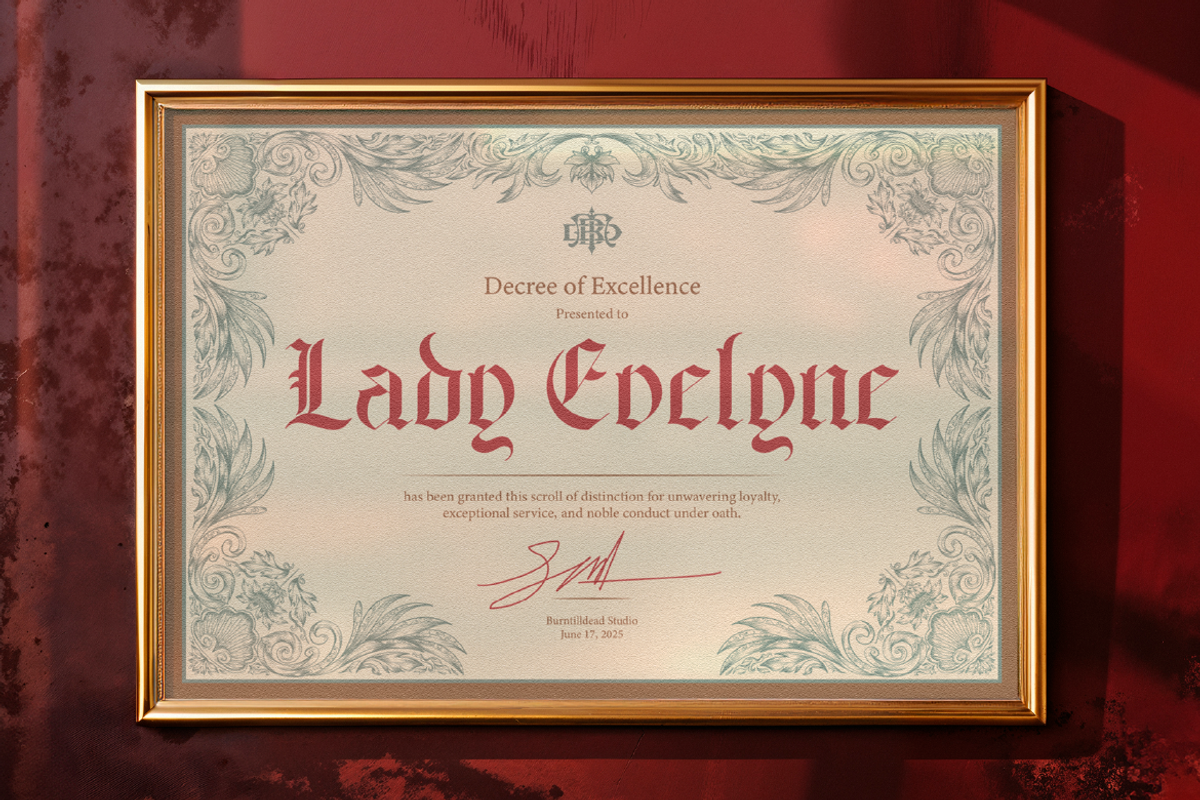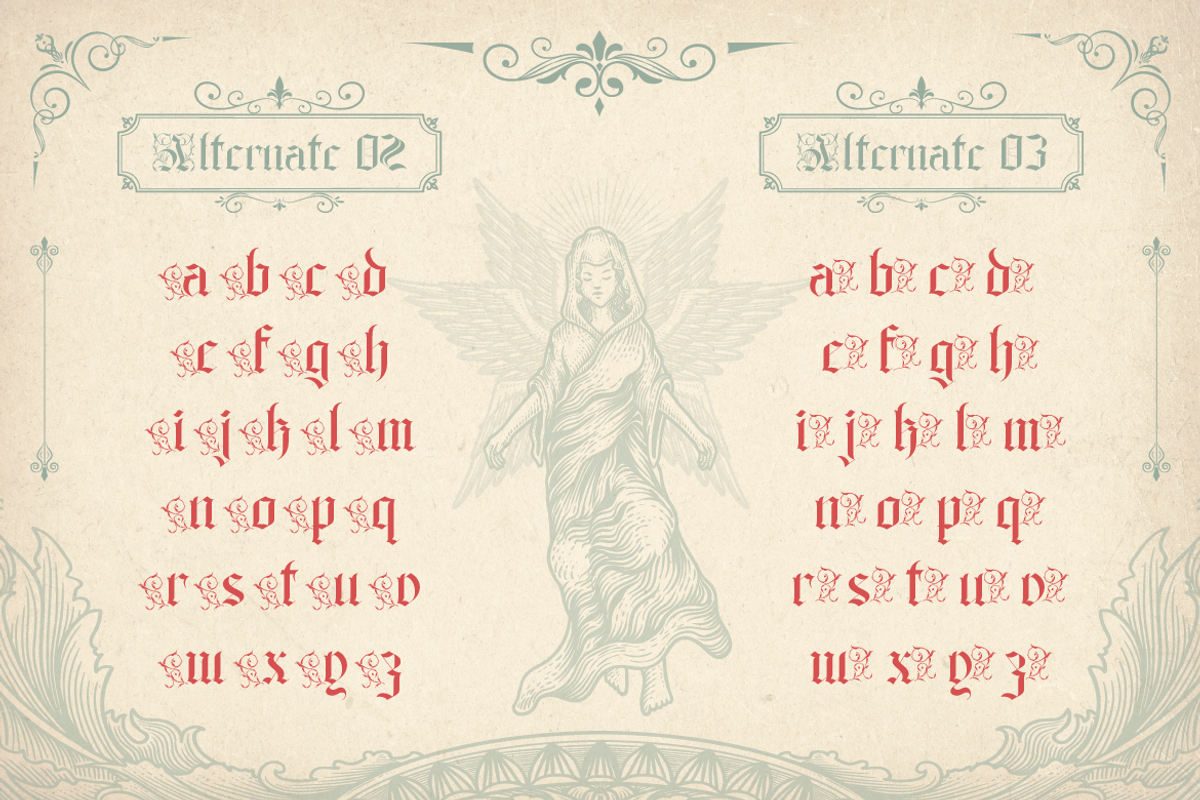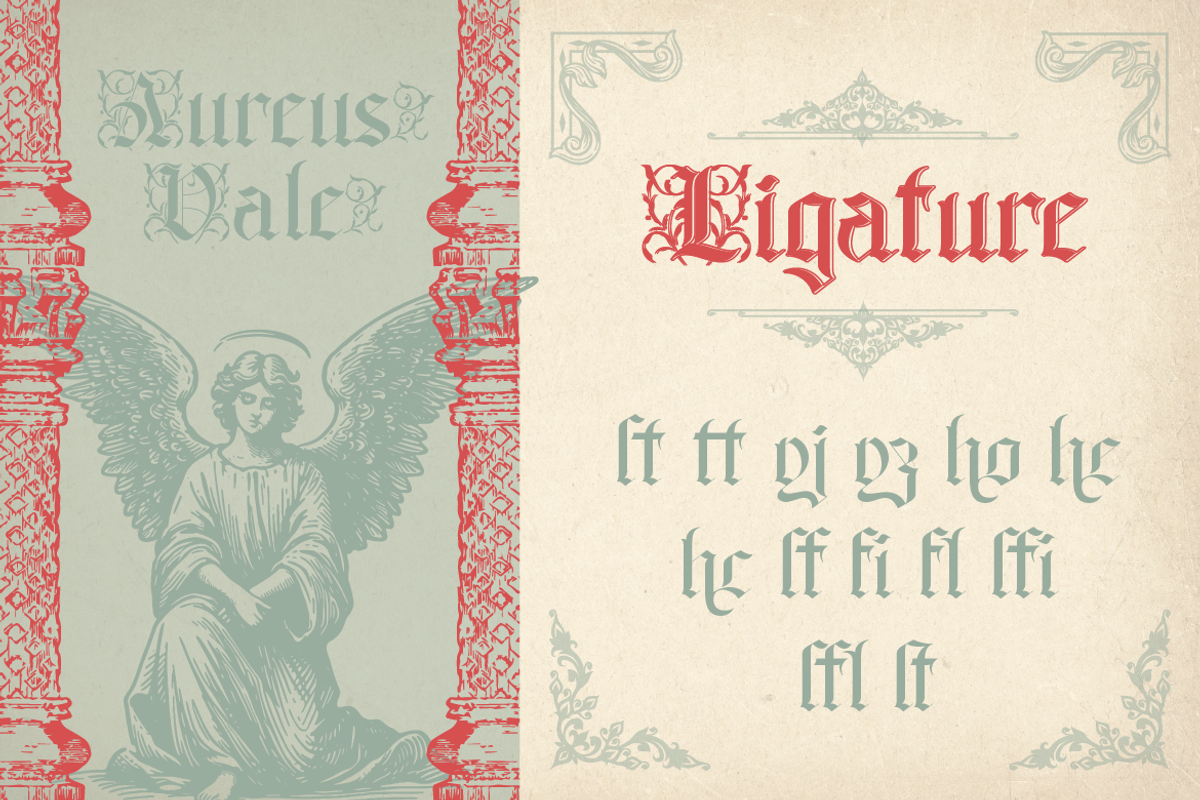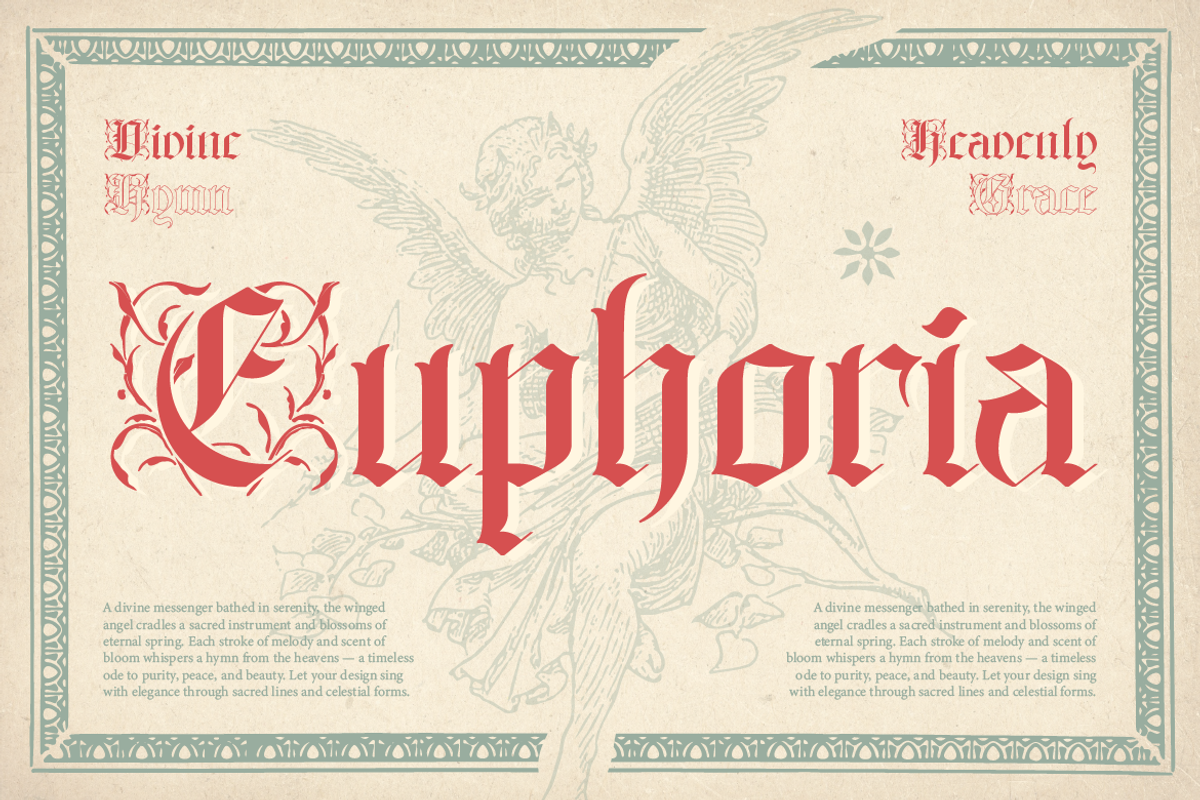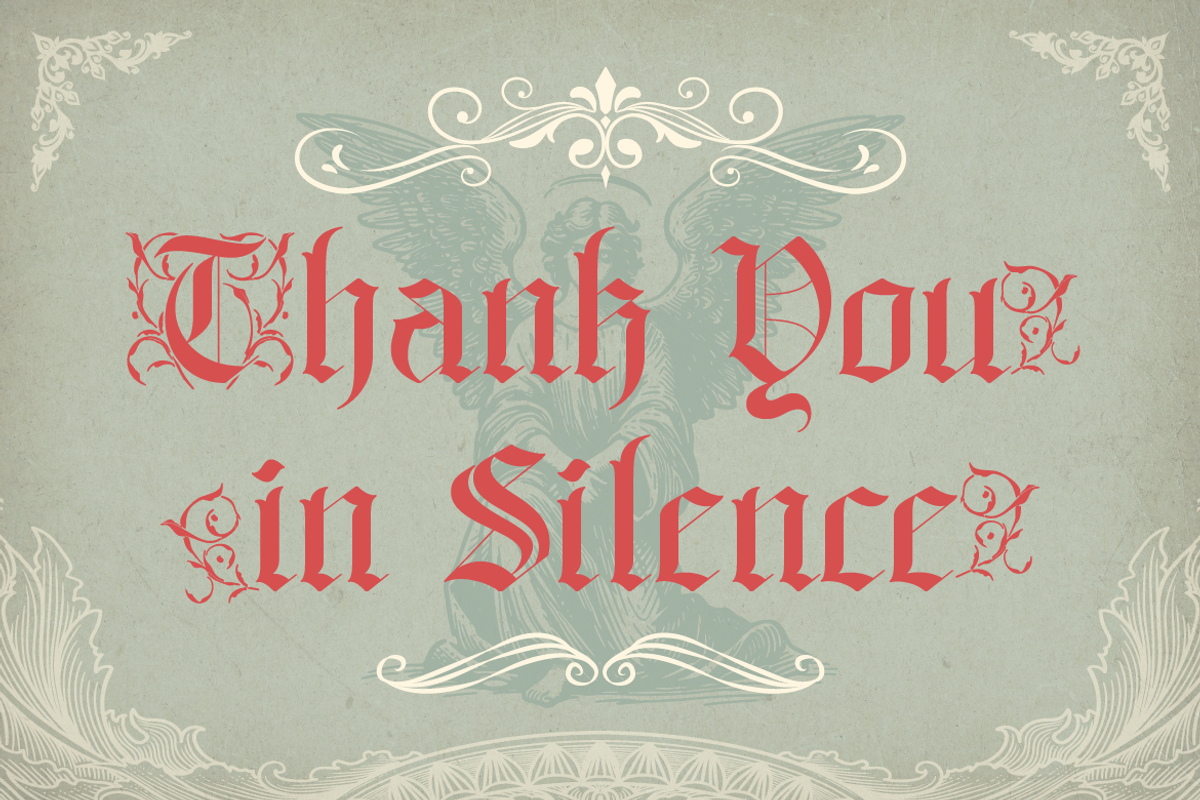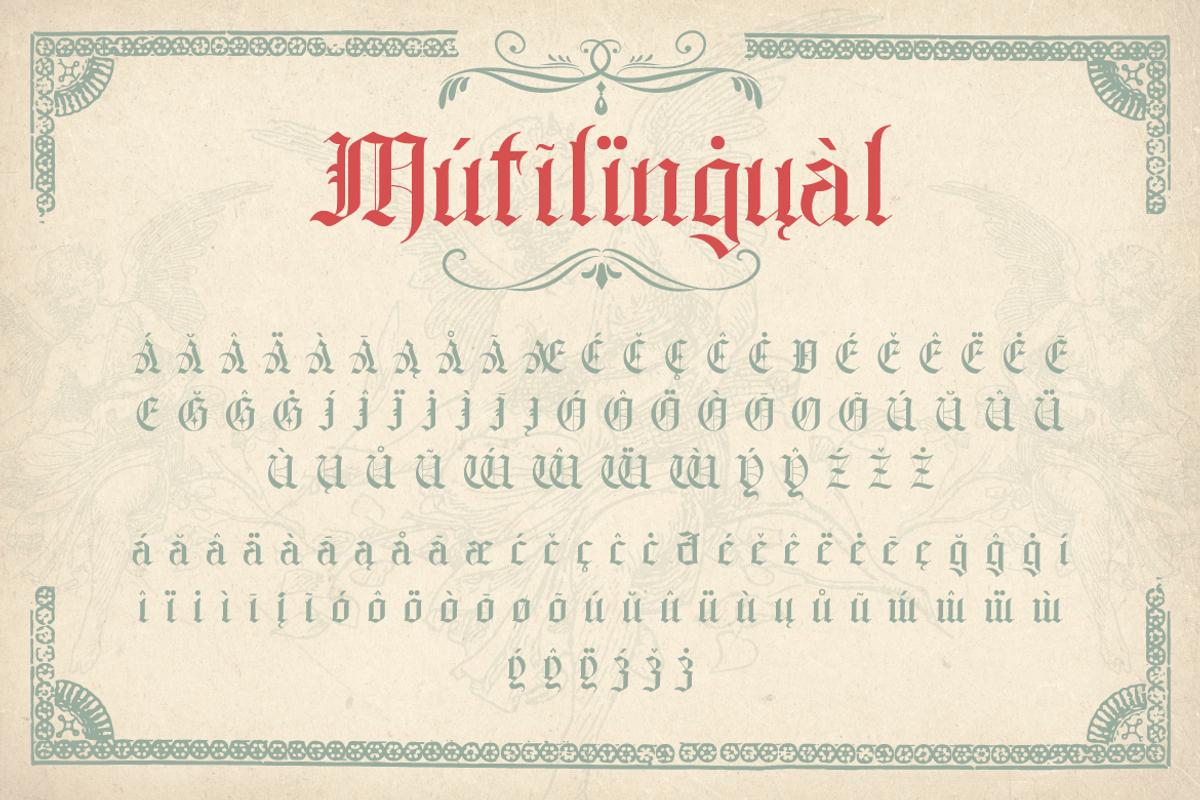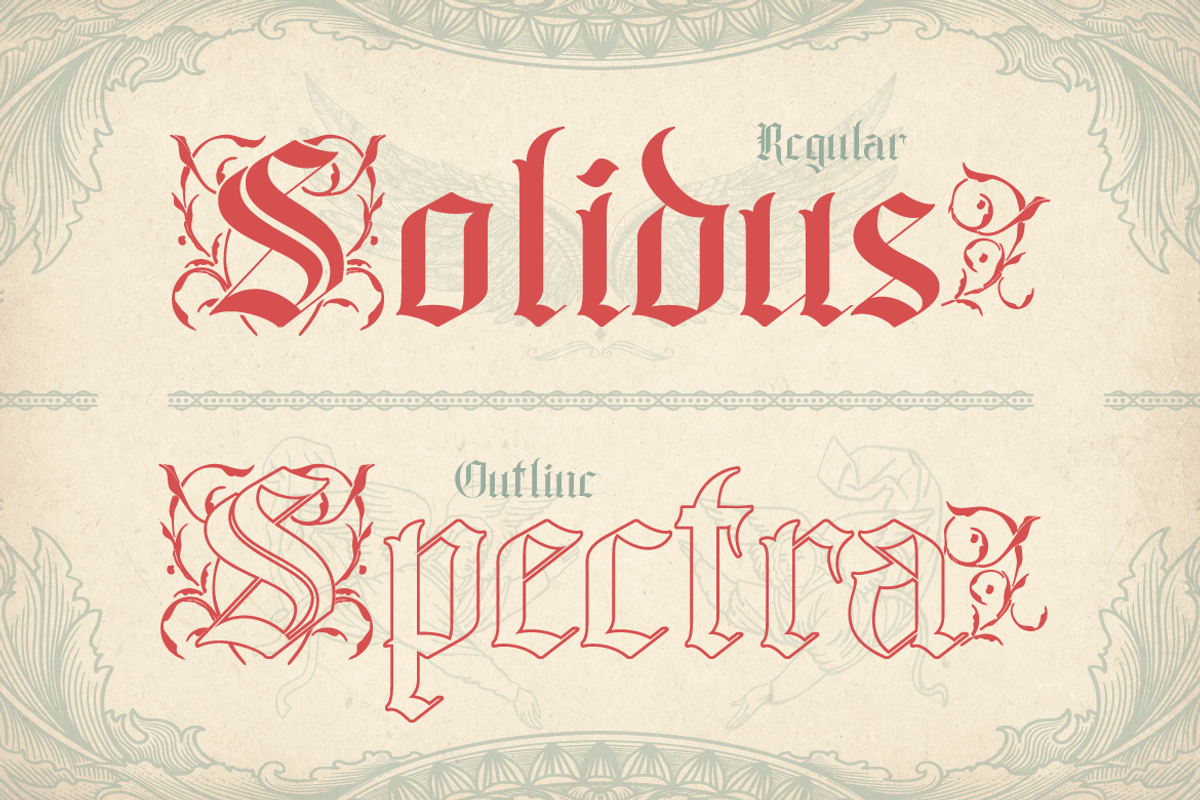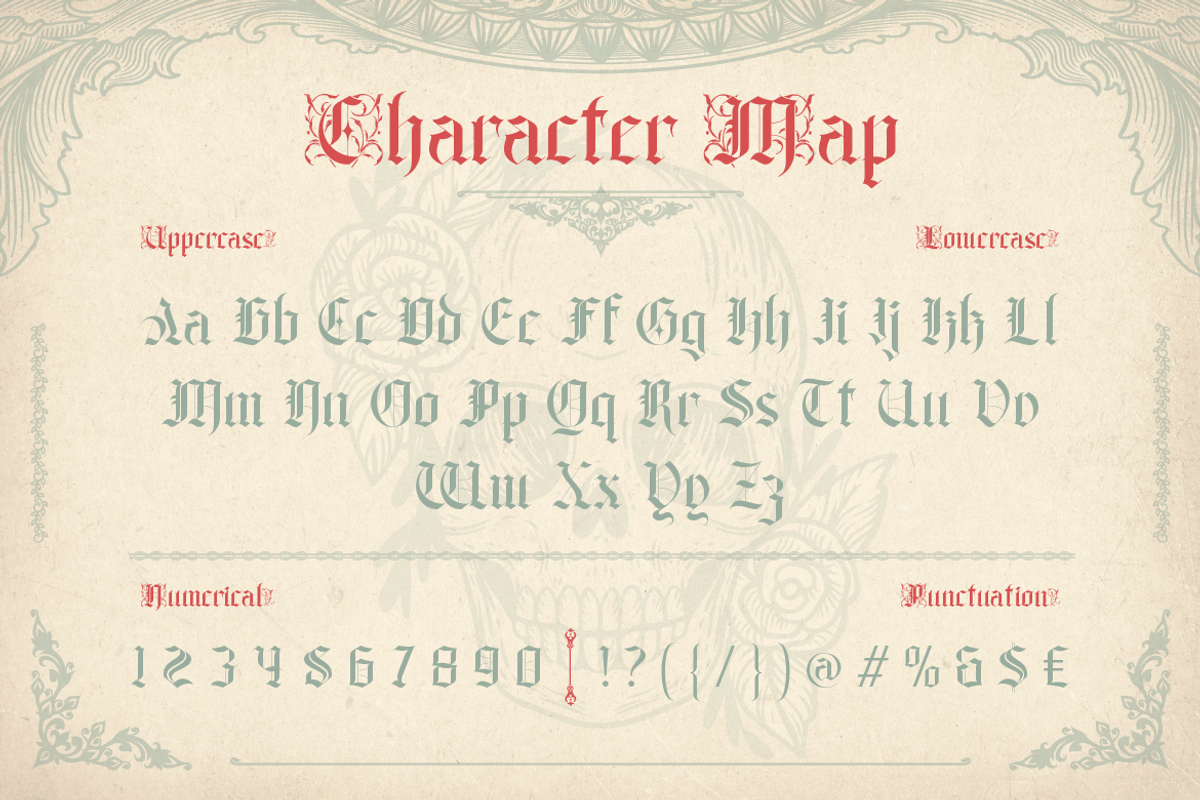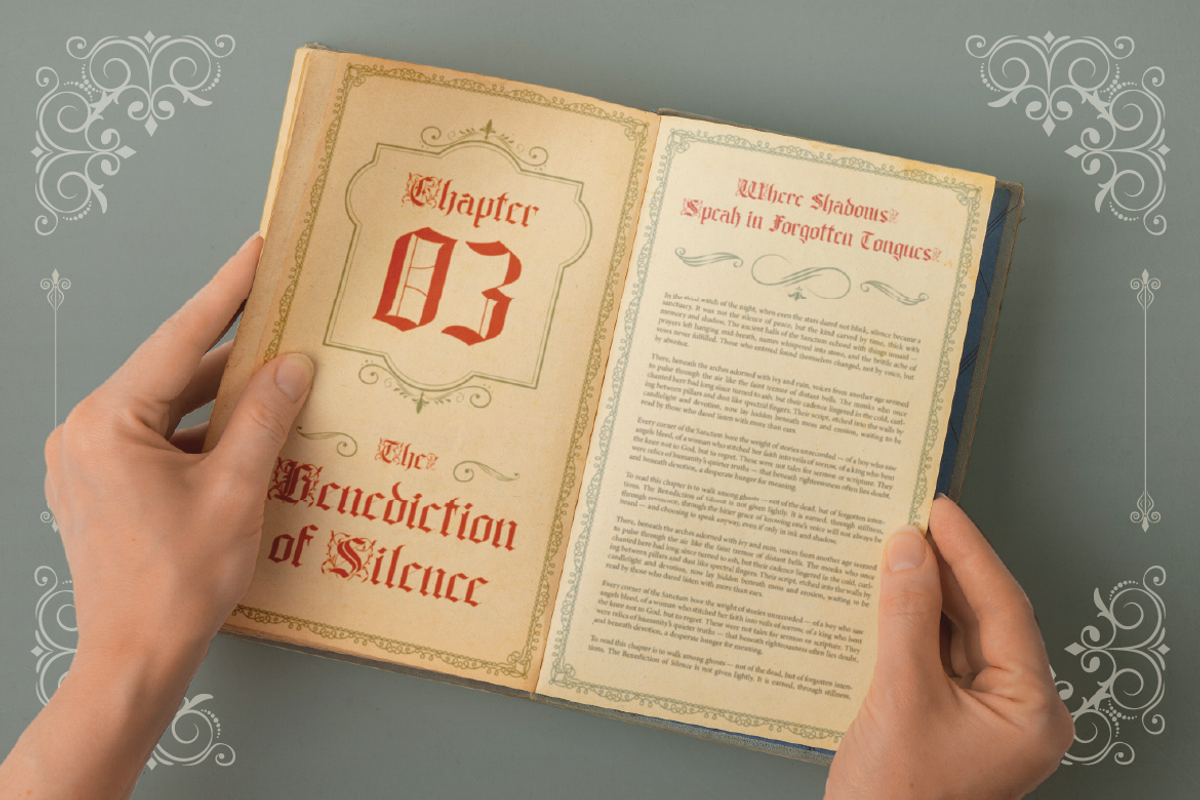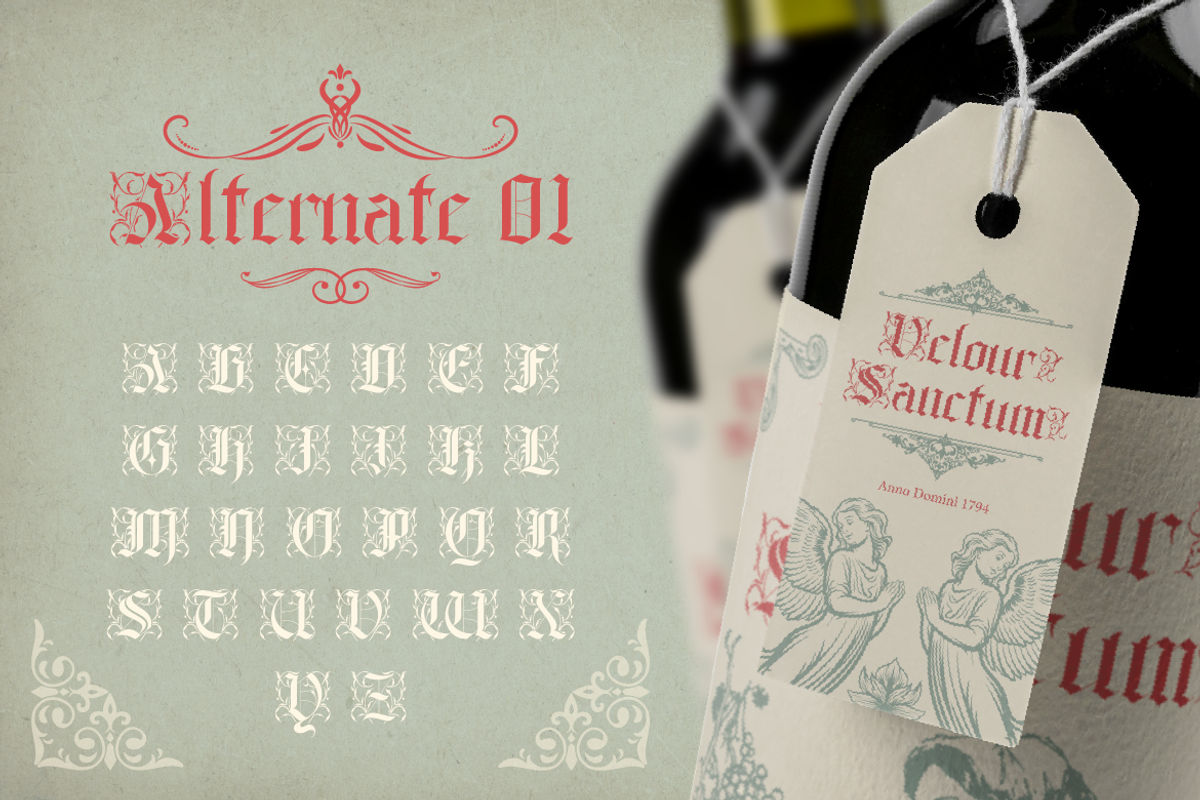
Aghony
Proudly present, Aghony — an artistic blackletter font with ornamental touches on each letter. This font brings an elegant yet dark atmosphere, taking you back to the medieval era with a modern and expressive twist. Aghony comes in two styles: Regular and Outline. The outline style is perfect for designs that need a lighter look while still keeping a bold visual presence — ideal for posters or large headers. Perfectly suited for themes like medieval/gothic, tattoo art, metal/hardcore album covers, vintage posters, or occult-inspired visuals.
Number
Alternate
Aghony Character Map